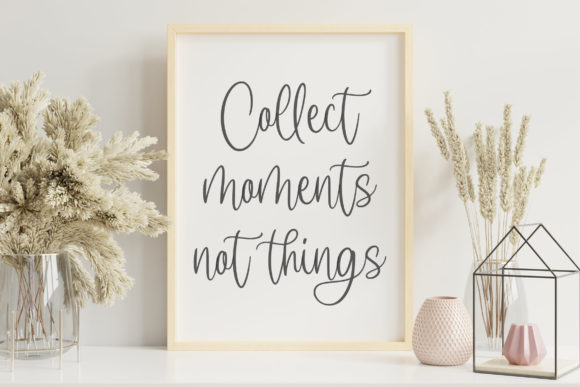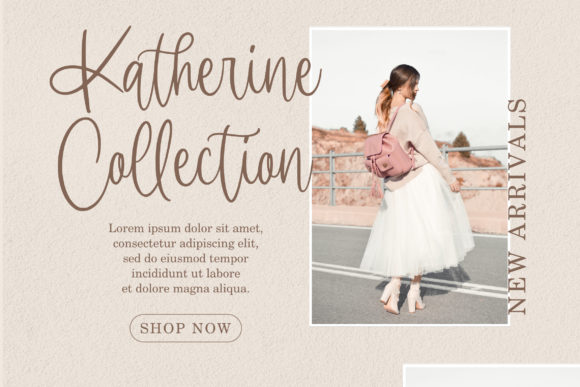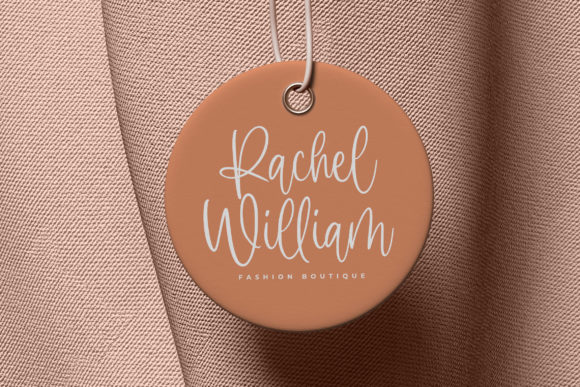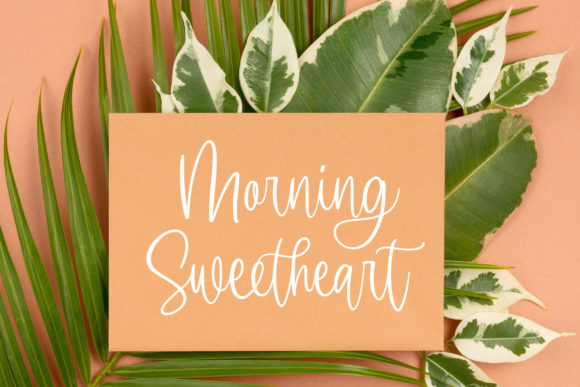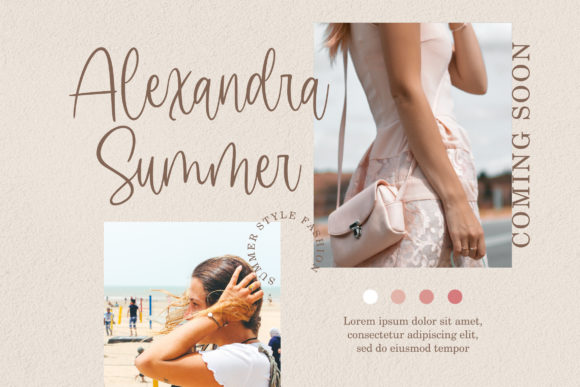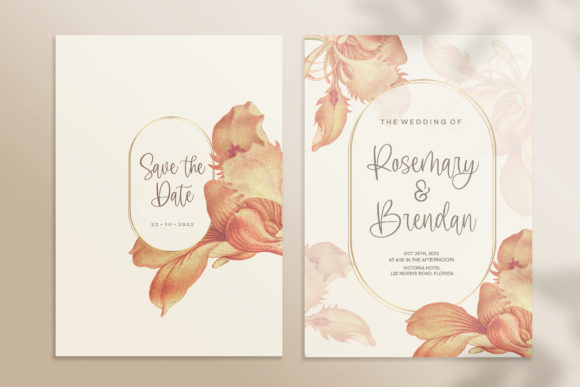
Introduction to Molliena Font Font
Fonts play a crucial role in design, and the Molliena Font font is a typeface that brings both character and versatility to any project. Whether you’re working on a branding project, a website, or a print design, the Molliena Font font offers a unique style that can elevate your work.
Molliena is an enchanting handwritten font.
This versatile script font has a wide spectrum of applications ranging from greeting cards to headlines and is guaranteed to add a romantic feel to your next project .
Key Features of Molliena Font Font
Why Choose Molliena Font Font?
The Molliena Font font is more than just a typeface – it’s a design tool that helps you communicate your message with style and clarity. Its unique character set and versatile design make it suitable for a wide range of applications, from elegant invitations to bold headlines.
With its carefully crafted letterforms and balanced proportions, the Molliena Font font ensures readability and visual appeal across all mediums.
What makes Molliena Font font special?
The Molliena Font font stands out with its unique design, exceptional readability, and versatility across various design applications.